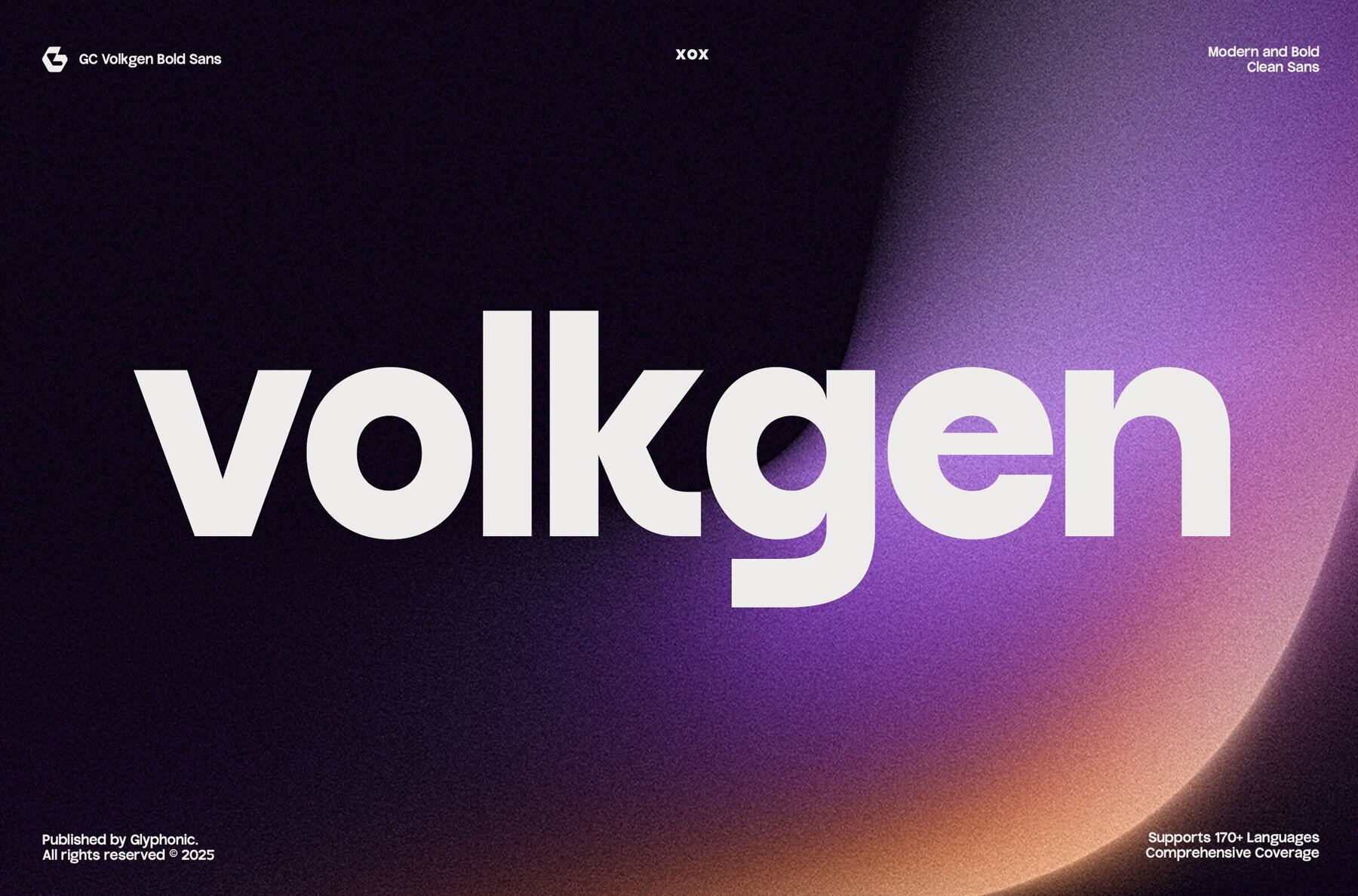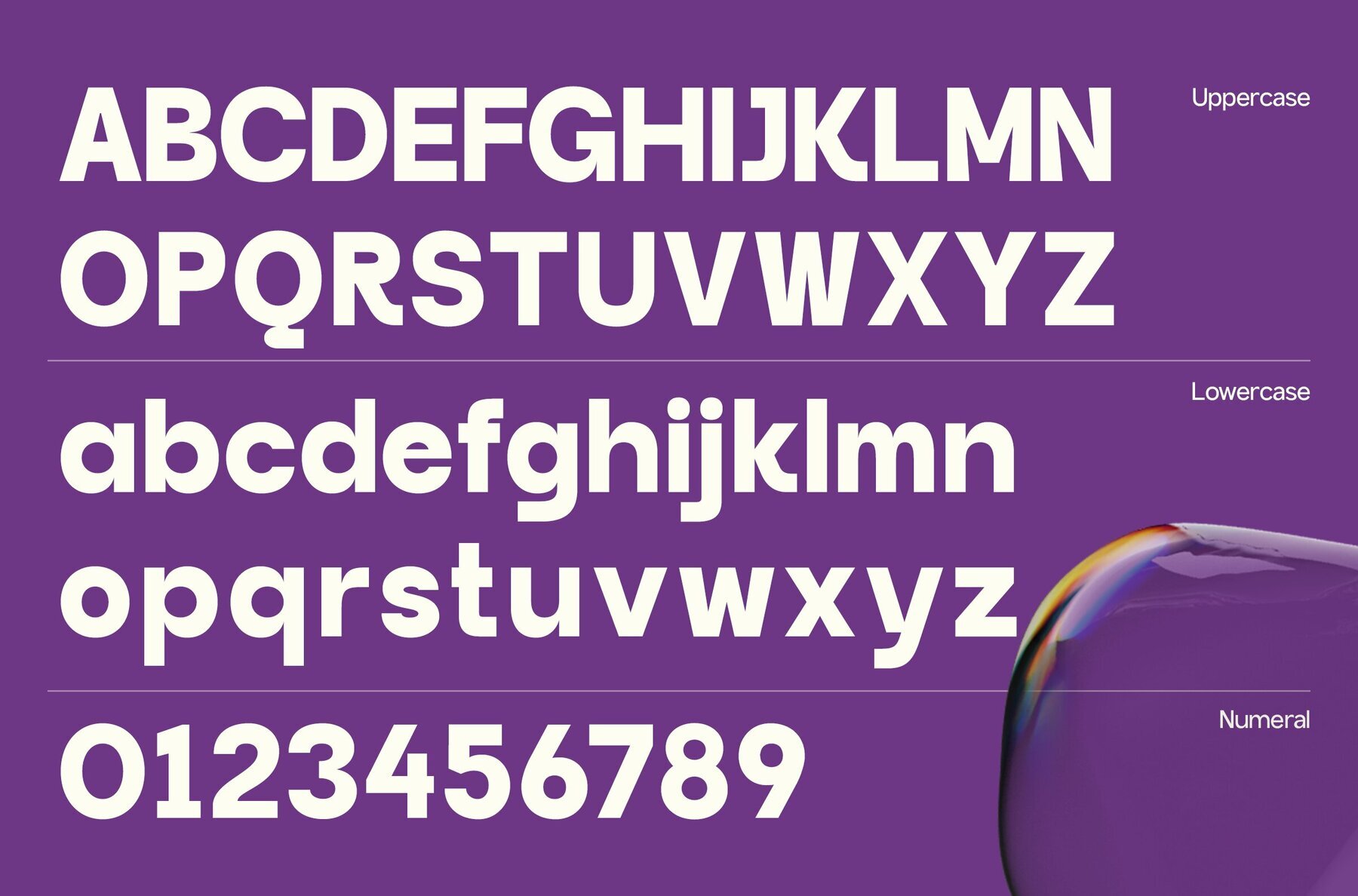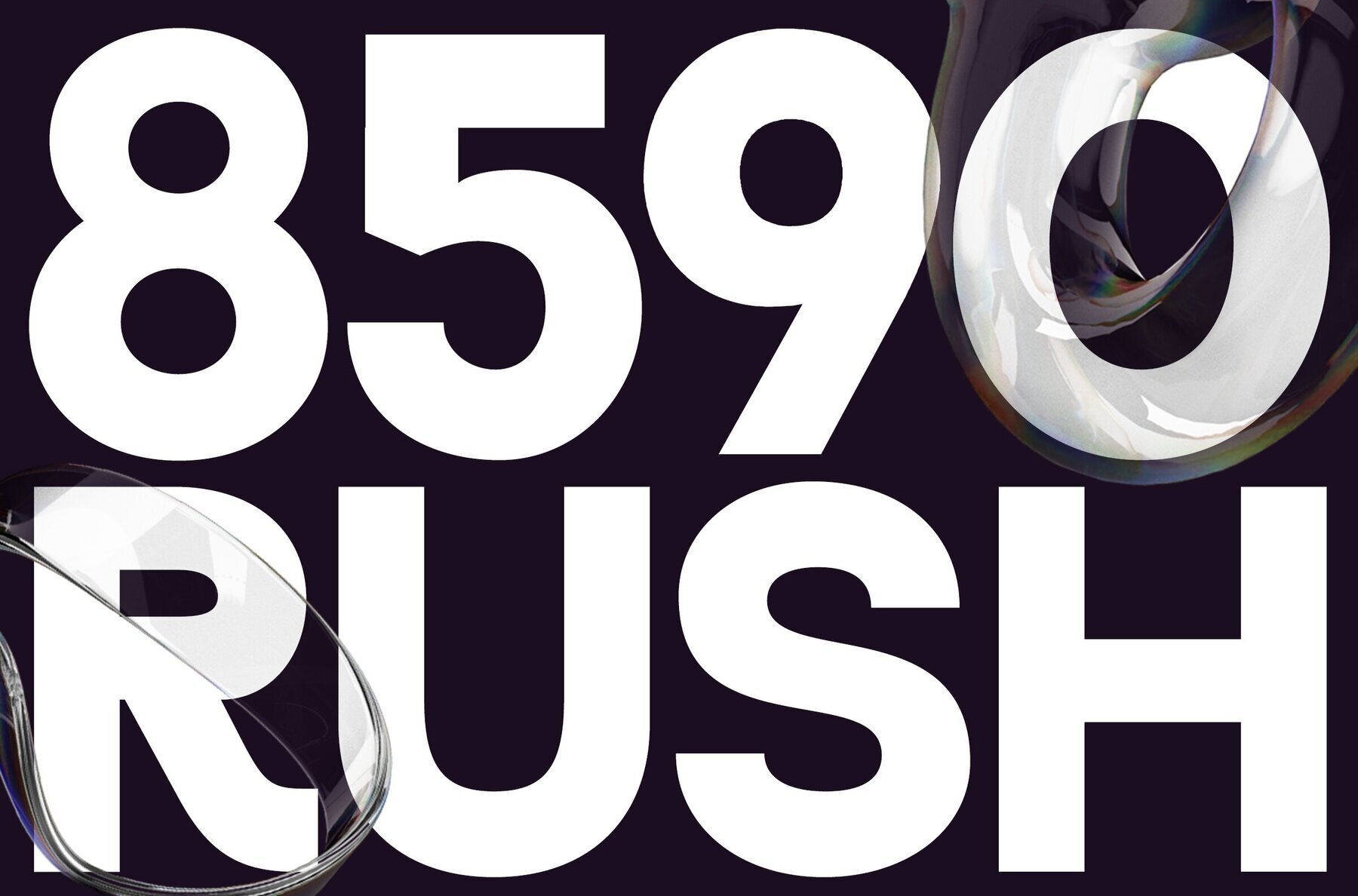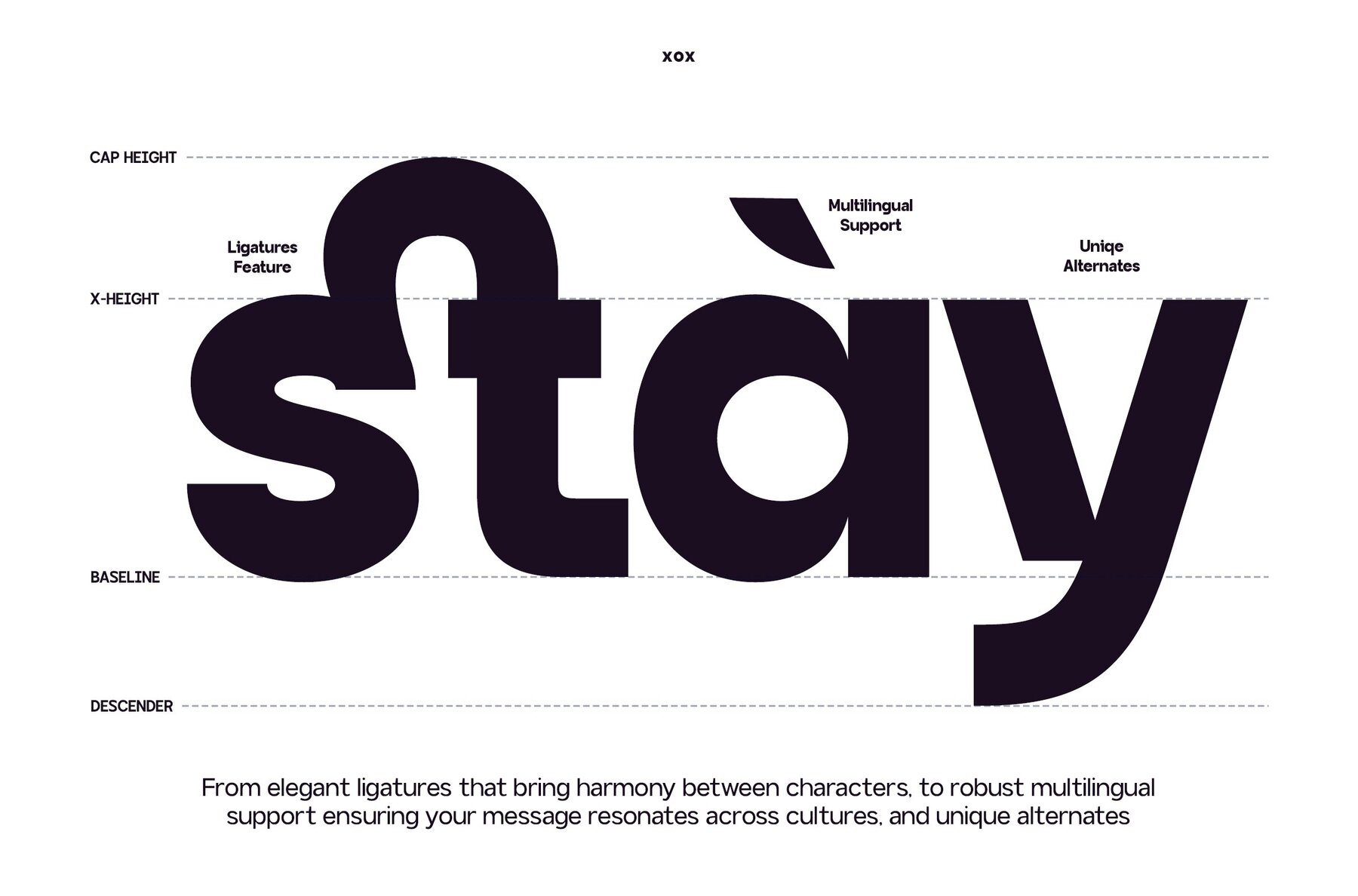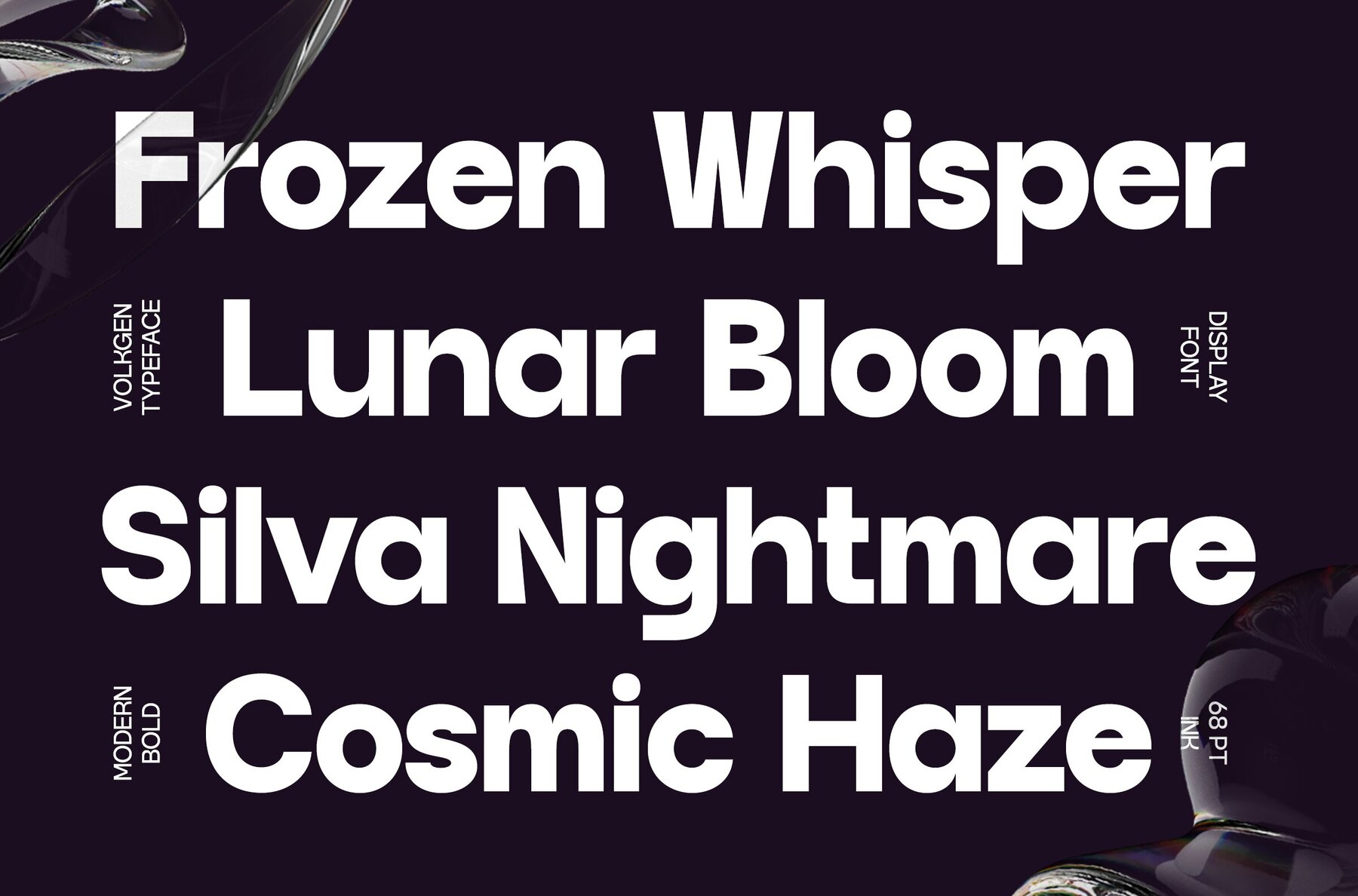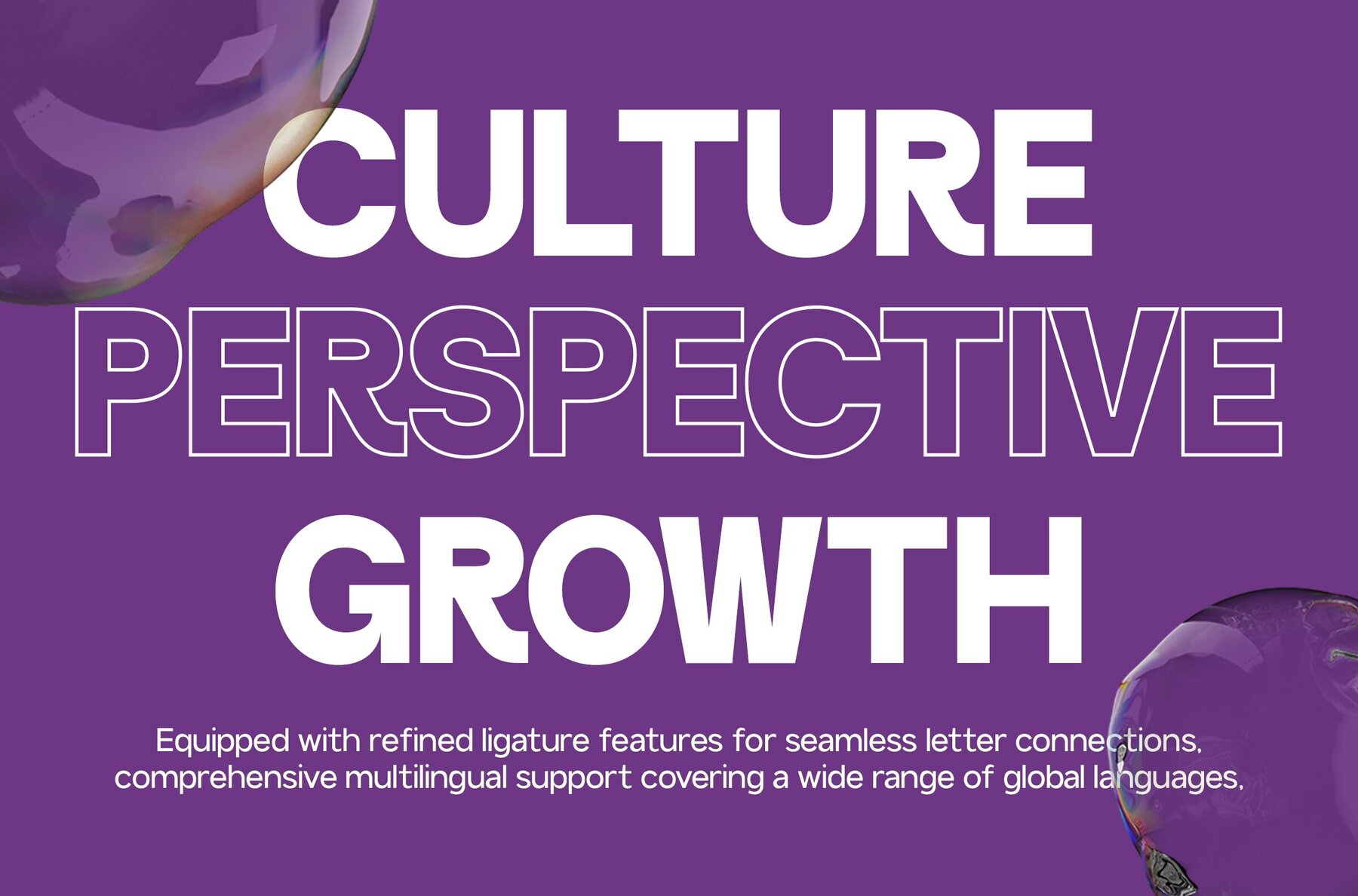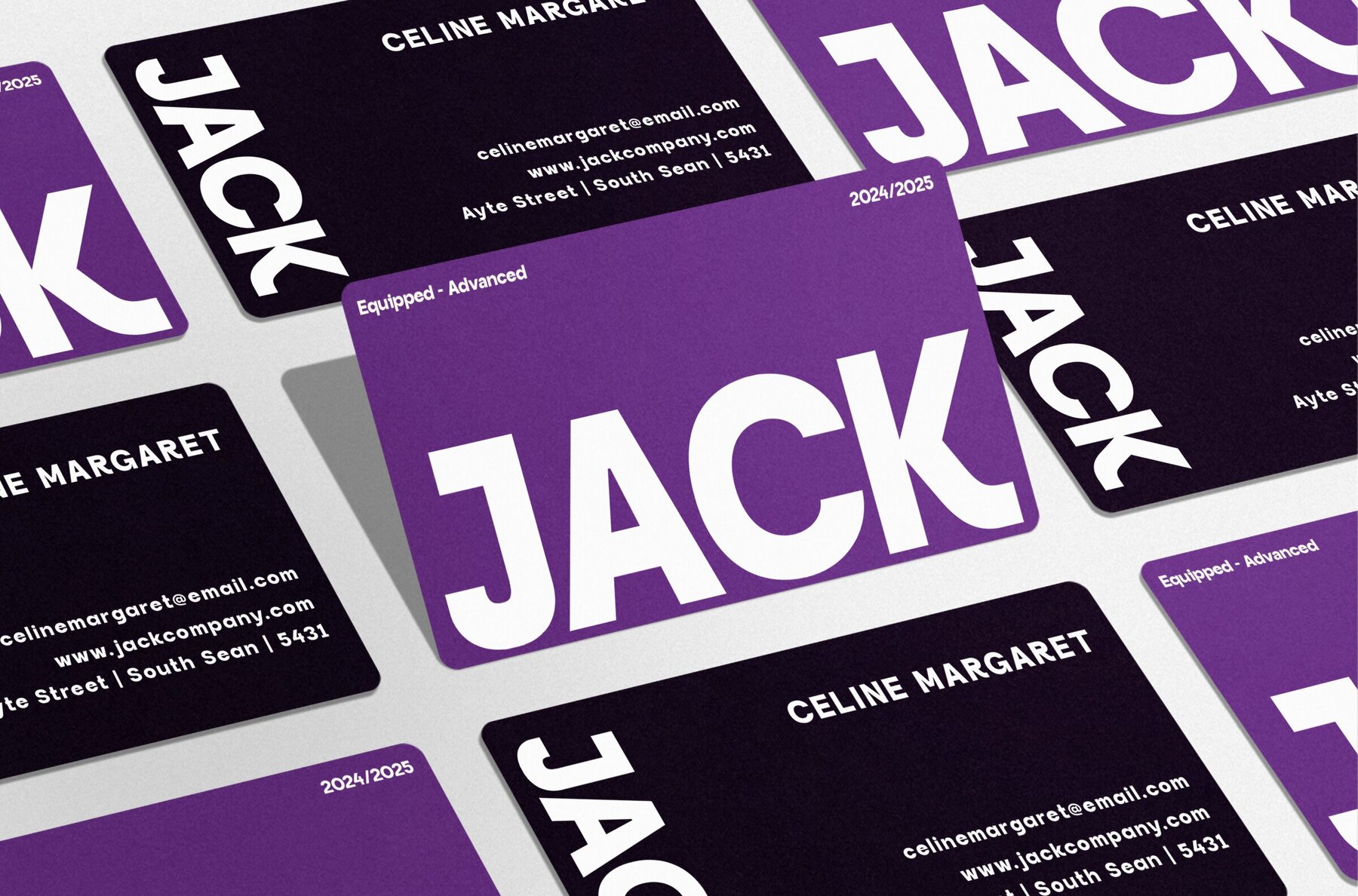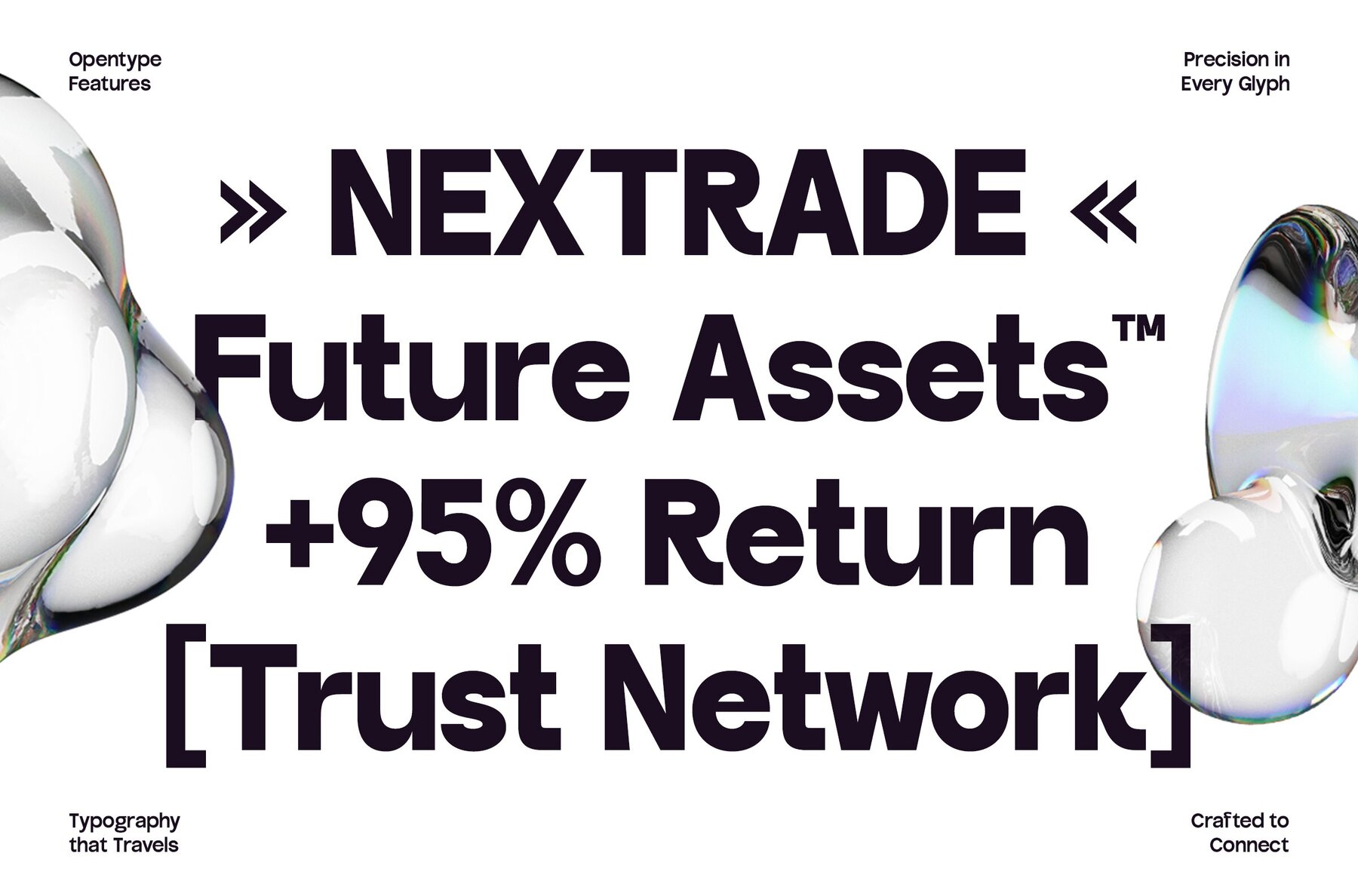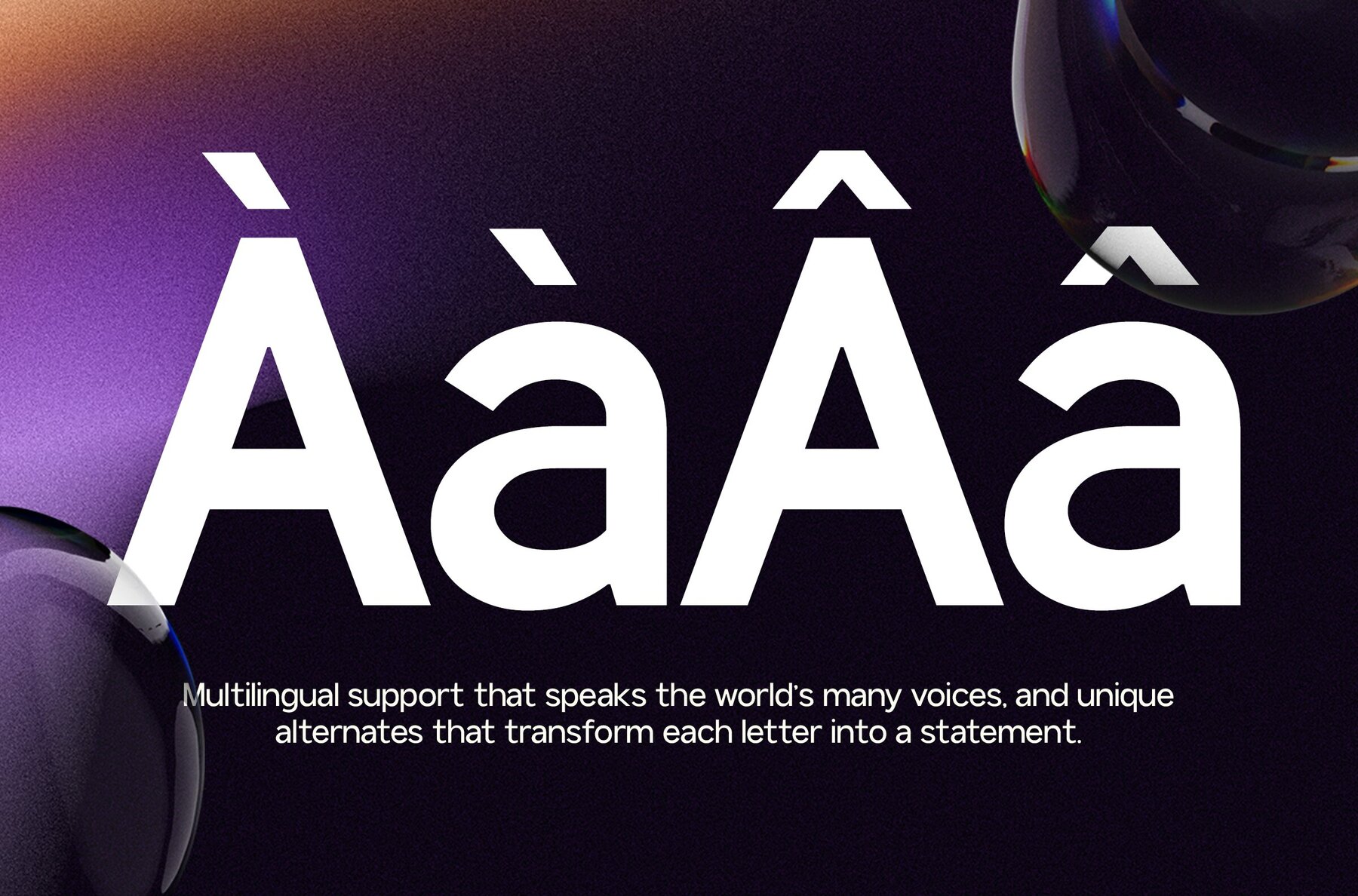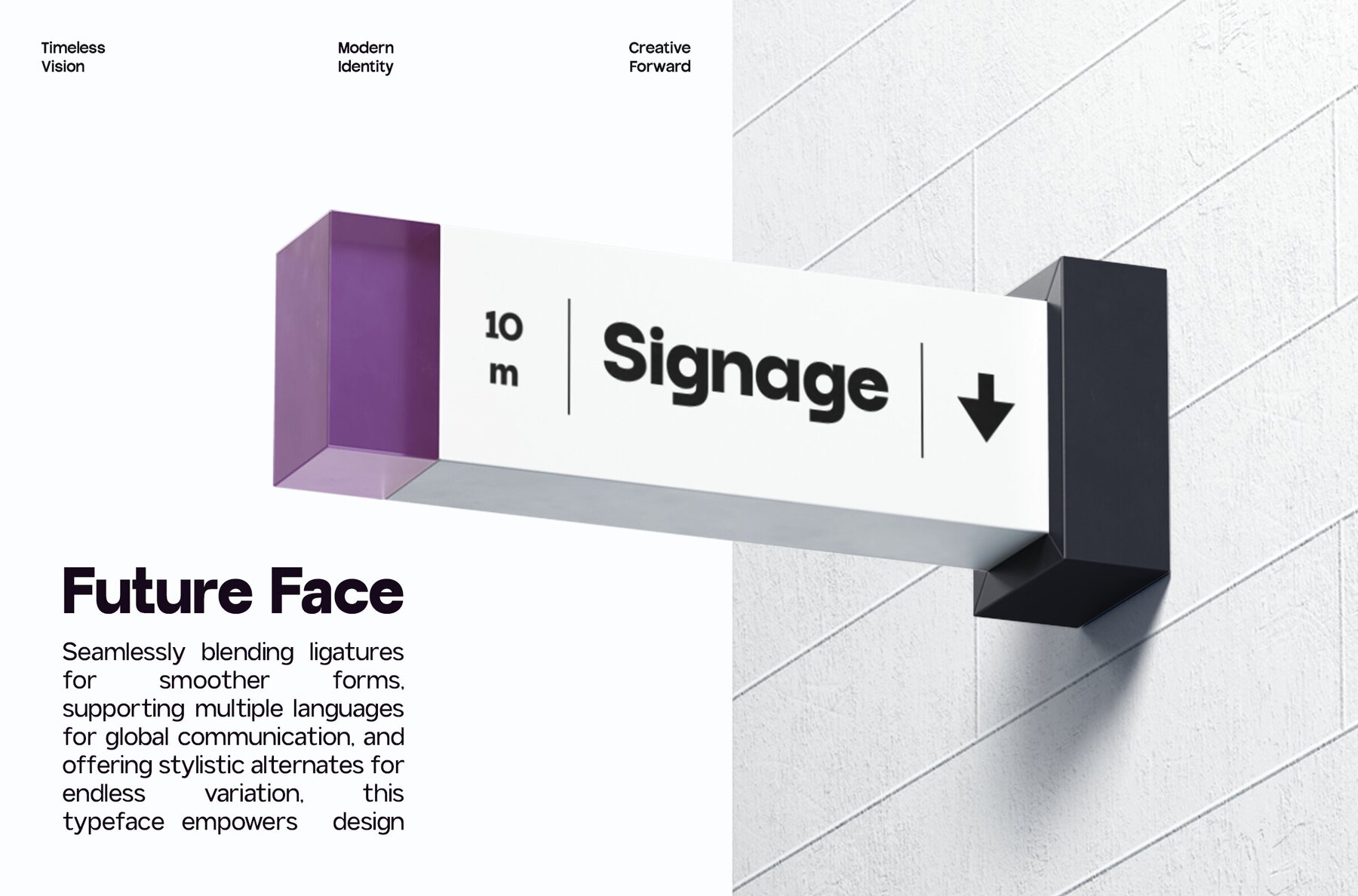
GC Volkgen Font
GC volkgen ExtraBold
GC Volkgen is a modern sans serif typeface that effortlessly merges sharp clarity with a commanding presence. Its design, rooted in clean geometric foundations and strengthened by bold strokes, exudes confidence and versatility across both digital and print mediums. Perfectly balancing precision and character, it is an ideal choice for branding, editorial design, technology-focused projects, and creating impactful visual identities. With its balanced proportions and refined details, GC Volkgen seamlessly adapts to various applications while maintaining a distinctive voice. Whether it's bold headlines, sleek interfaces, or minimalist layouts, this font provides strength, clarity, and modern sophistication to any typographic project.GC Volkgen: Sharp Clarity and Commanding Presence